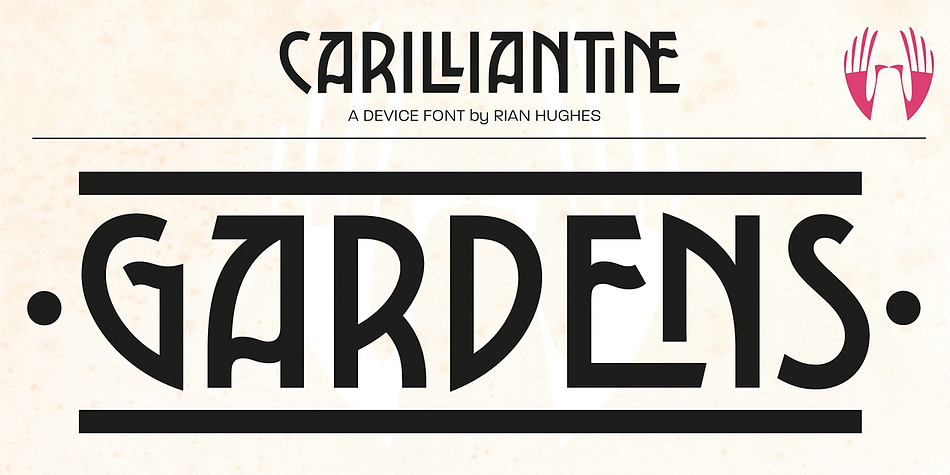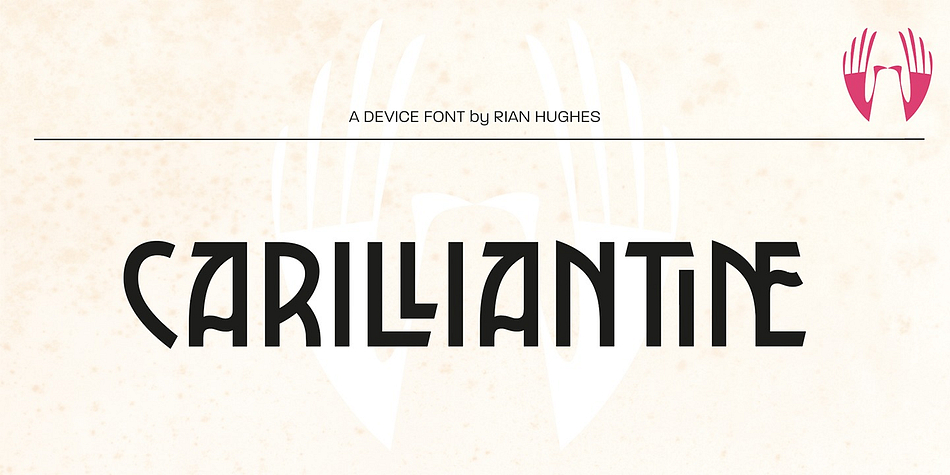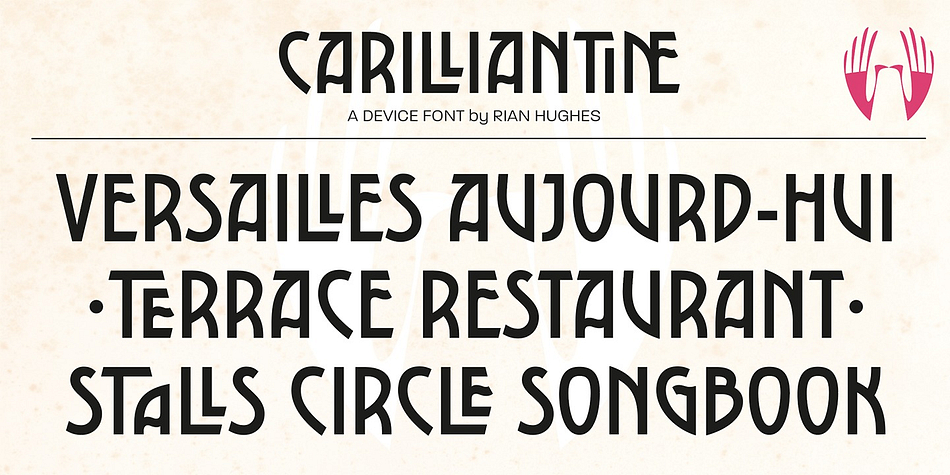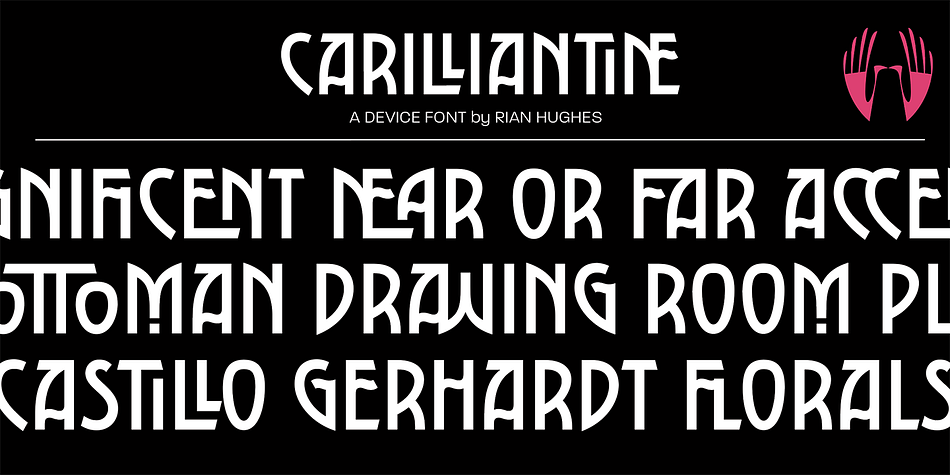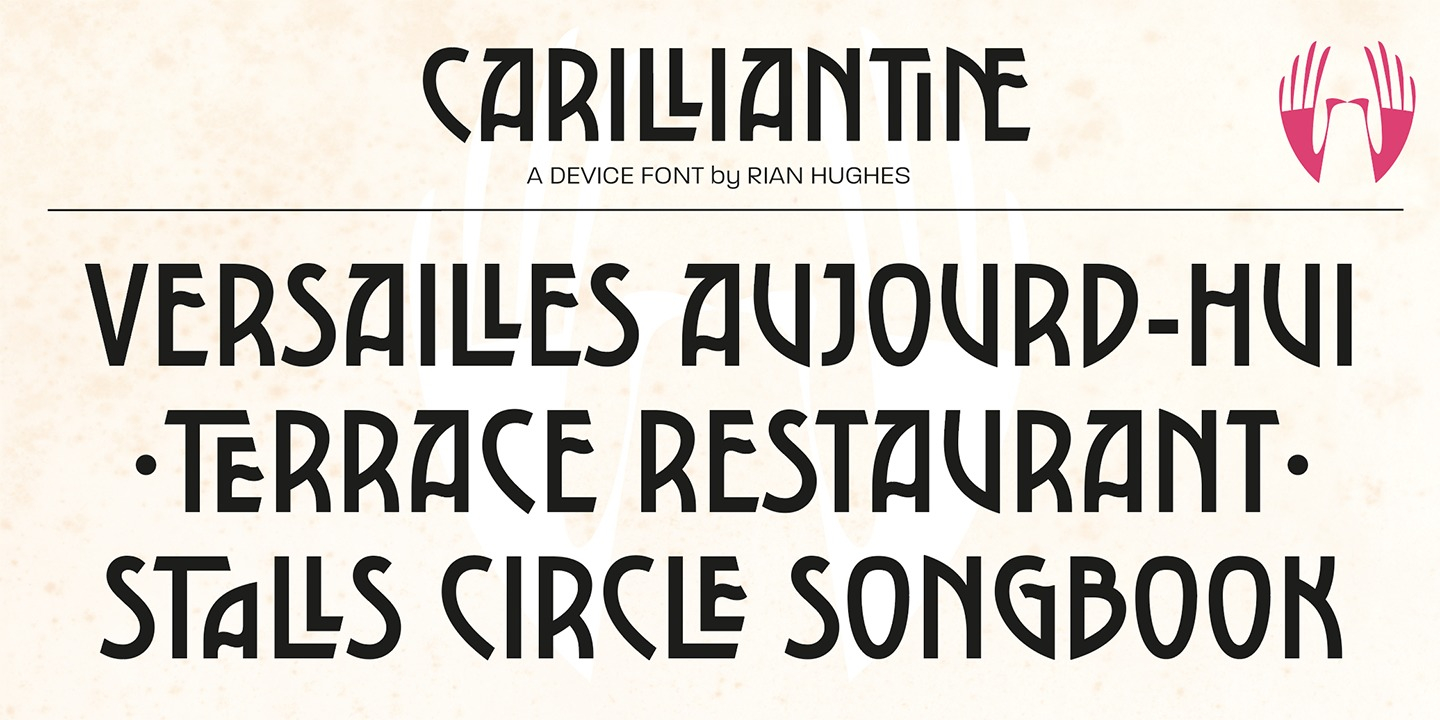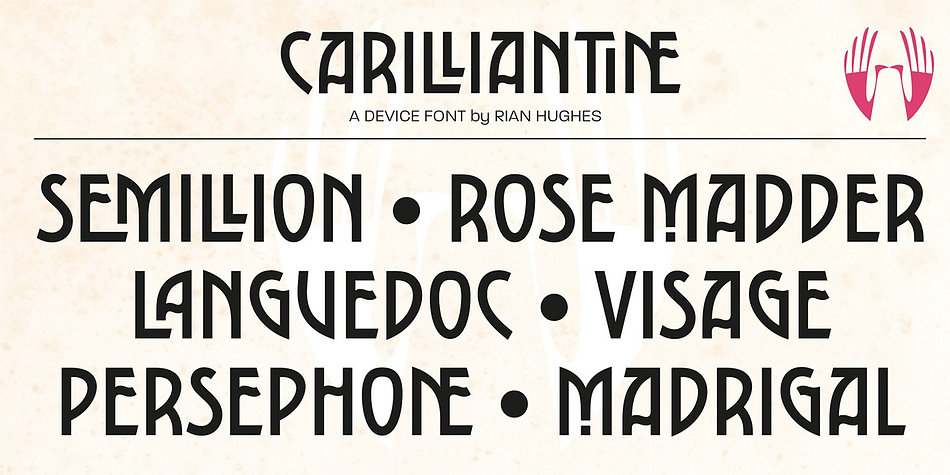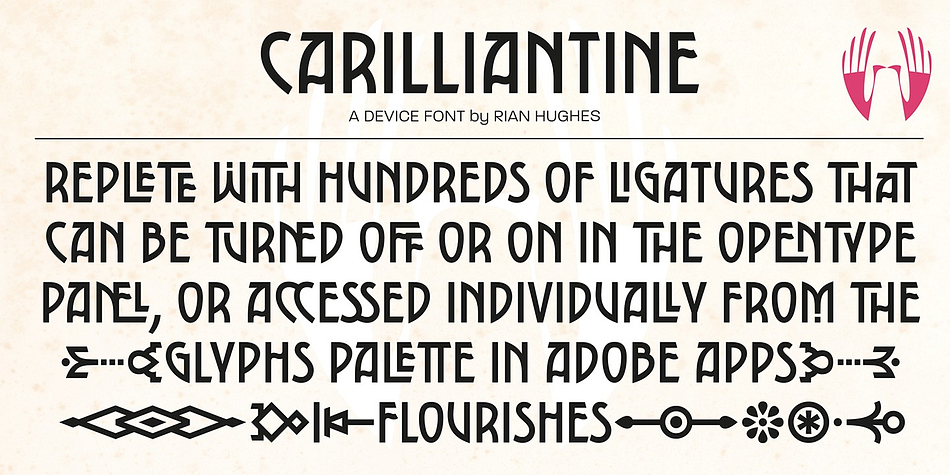
Designed by Rian Hughes, Carilliantine is an art nouveau font published by Device.
Carilliantine updates the organic curves of Art Nouveau typefaces typified by John F. Cumming’s Desdemona, designed around 1886.
A contemporary monoline sans reinterpretation rather than a more traditional serif, its high-waisted emphasis lends it an elegance and class.
Carilliantine is replete with hundreds of two- and three-letter ligatures that bring a customised uniqueness to any headline. These are on by default, and can be toggled on or off in the Opentype palette of Adobe apps, or chosen individually according to taste from the Glyphs menu.
Suitable for upmarket food packaging, wine labels, restaurants, folk bands, sword and sorcery trilogies, cosmetics and fashion brands that nod to the refinement of yesteryear, but are very much of today.